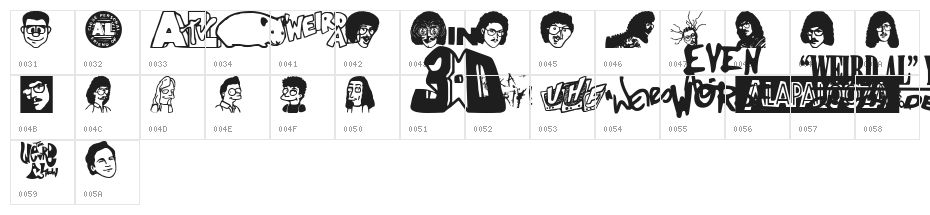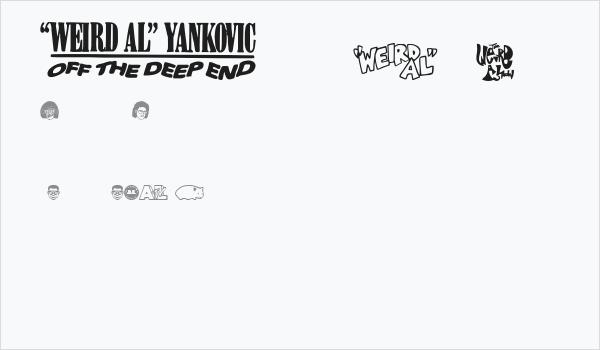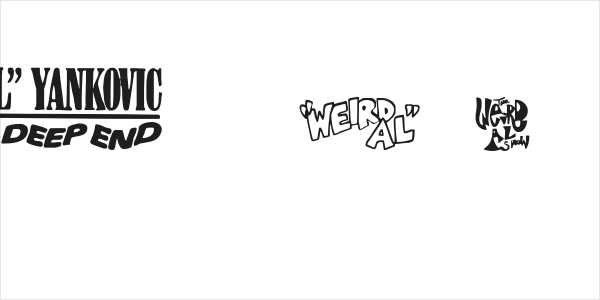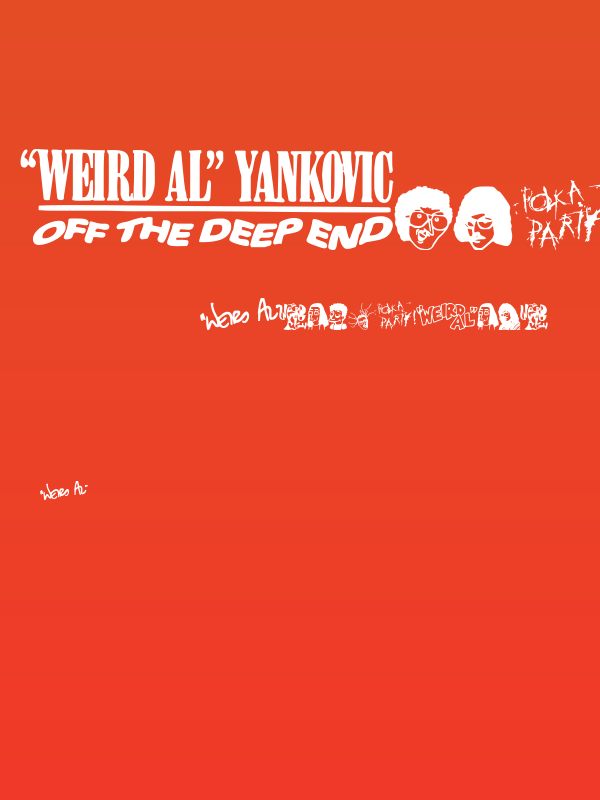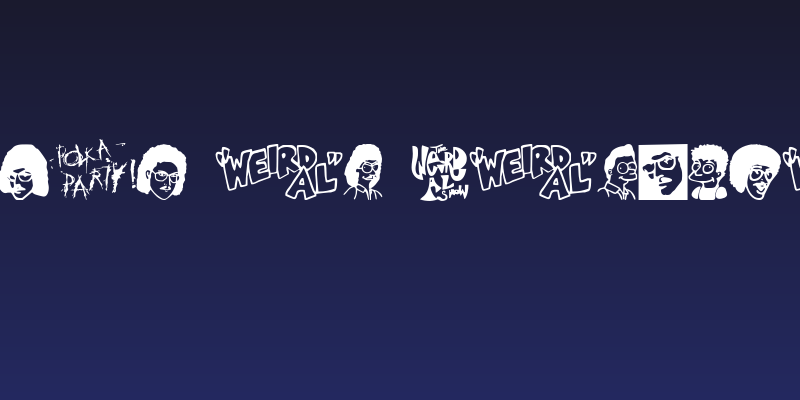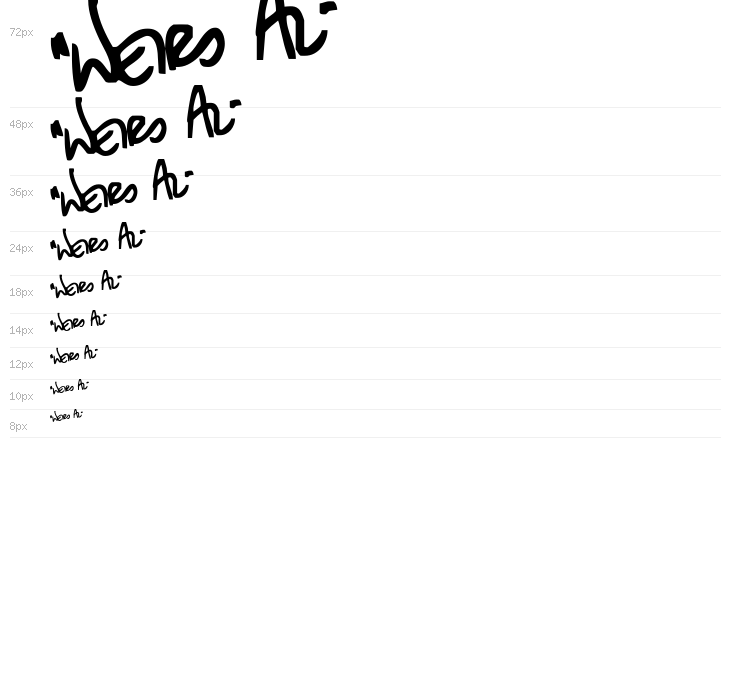
Weird Al Yankobats Font
Weird Al Yankobats Description
This font is a playful and whimsical collection of icons and illustrations inspired by a comedic musician. It features caricatures of faces, humorous text, and quirky symbols that capture the essence of parody and satire. The style is bold and cartoonish, with a focus on entertainment and humor. Each character is unique, offering a variety of visual elements that can be used creatively in designs. The font is not meant for traditional text but rather for decorative purposes, adding a fun and lighthearted touch to any project.
| Overall Style | Whimsical, Humorous, Cartoonish |
| Use Case | Decorative elements, Posters, Merchandise |
| Proposed Projects | Ideal for creating posters, album covers, or merchandise related to comedy or parody themes. |